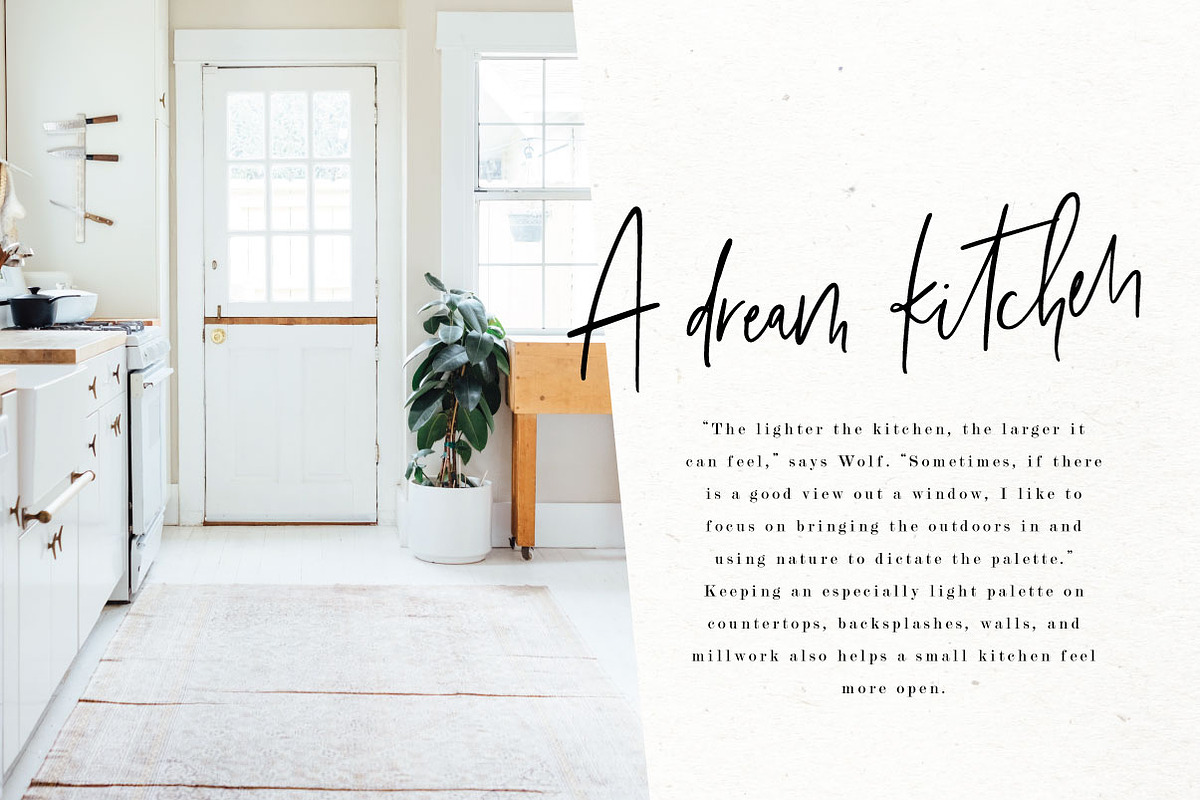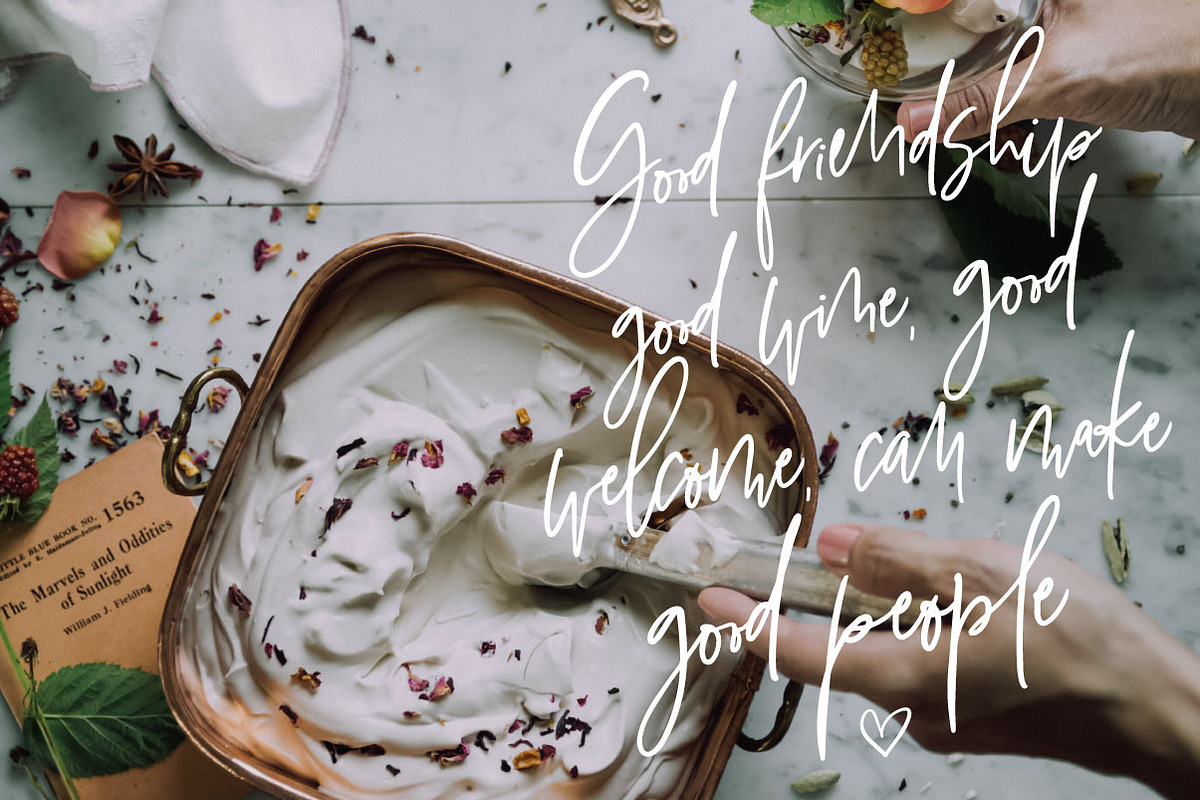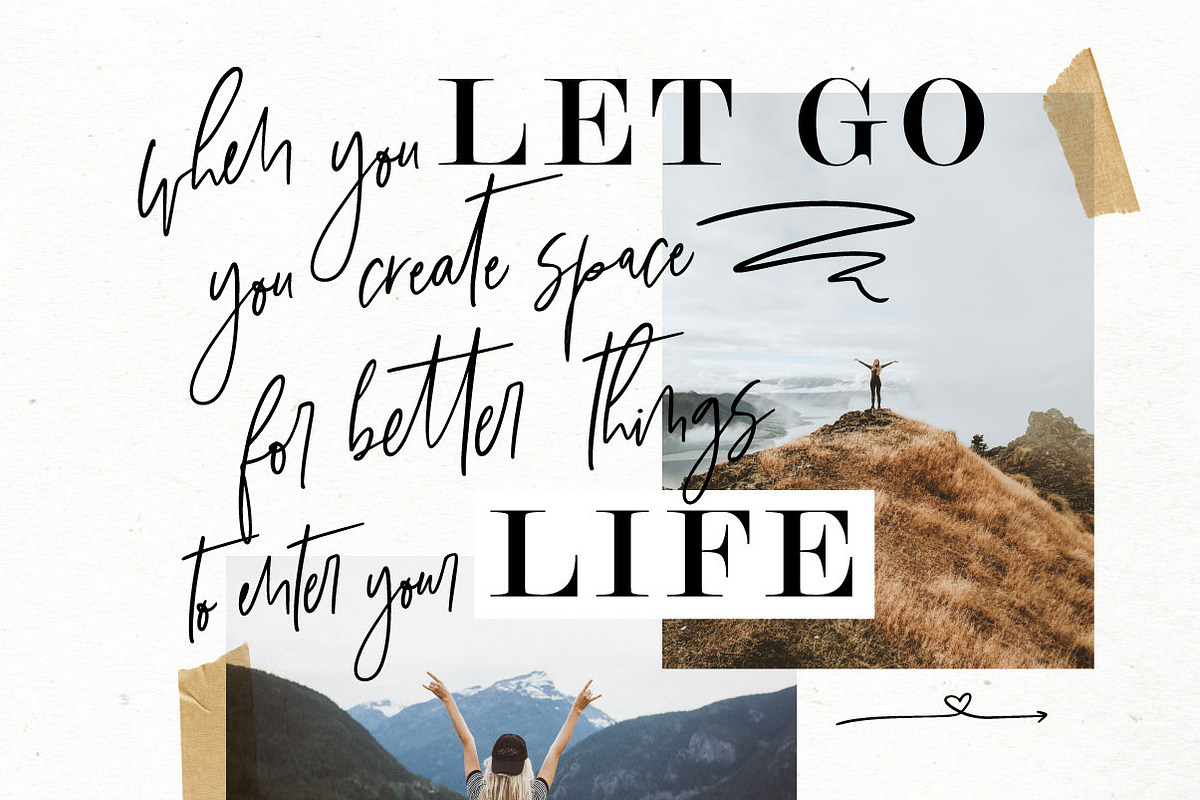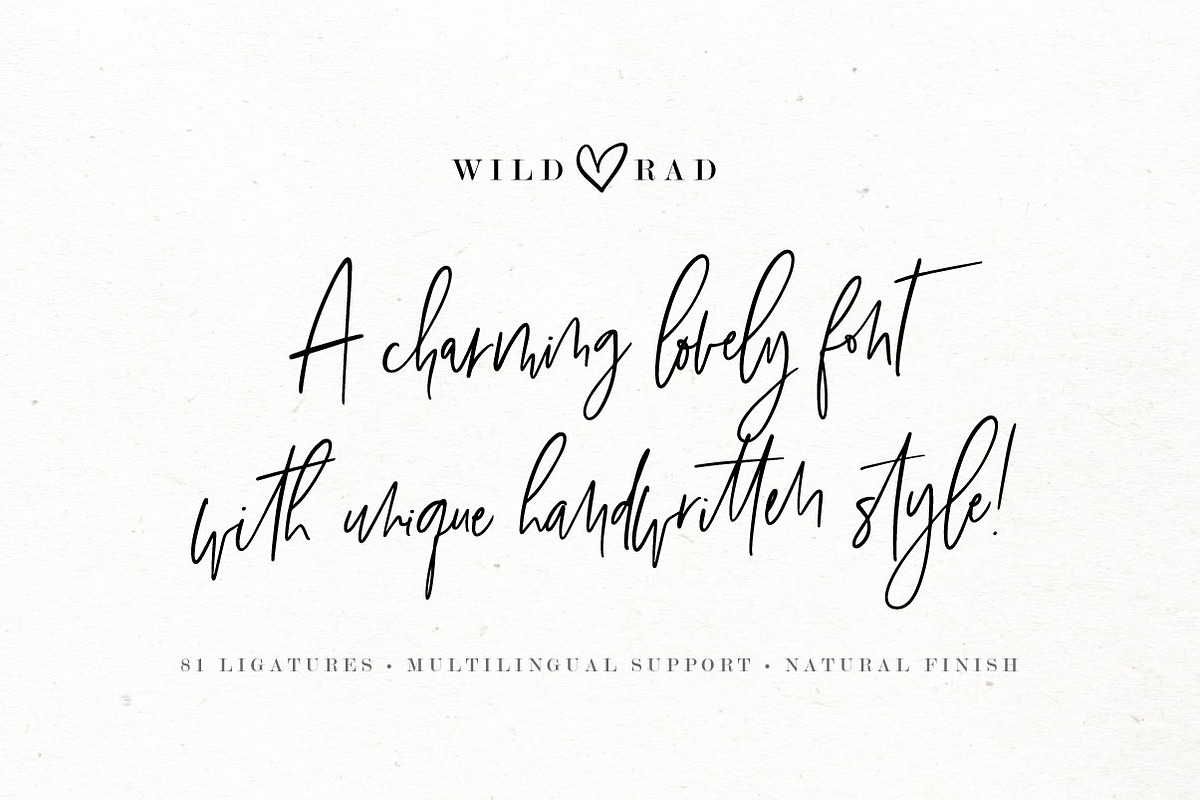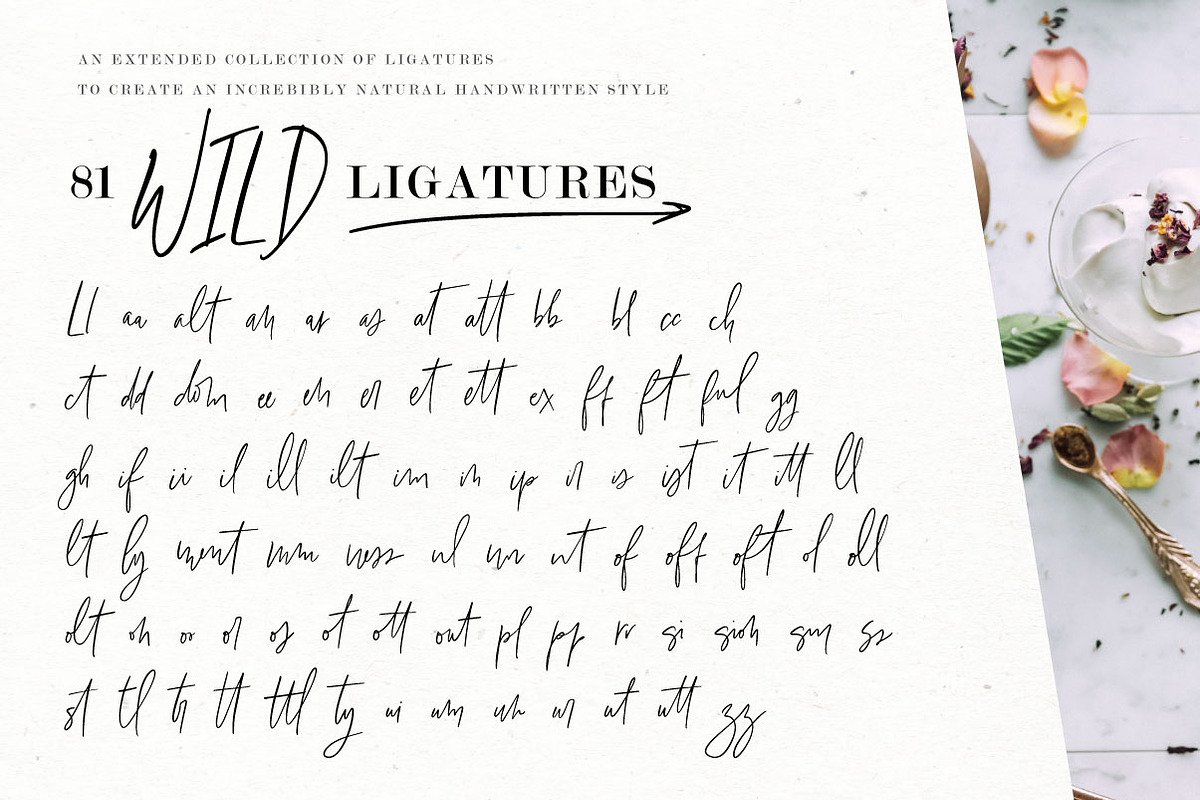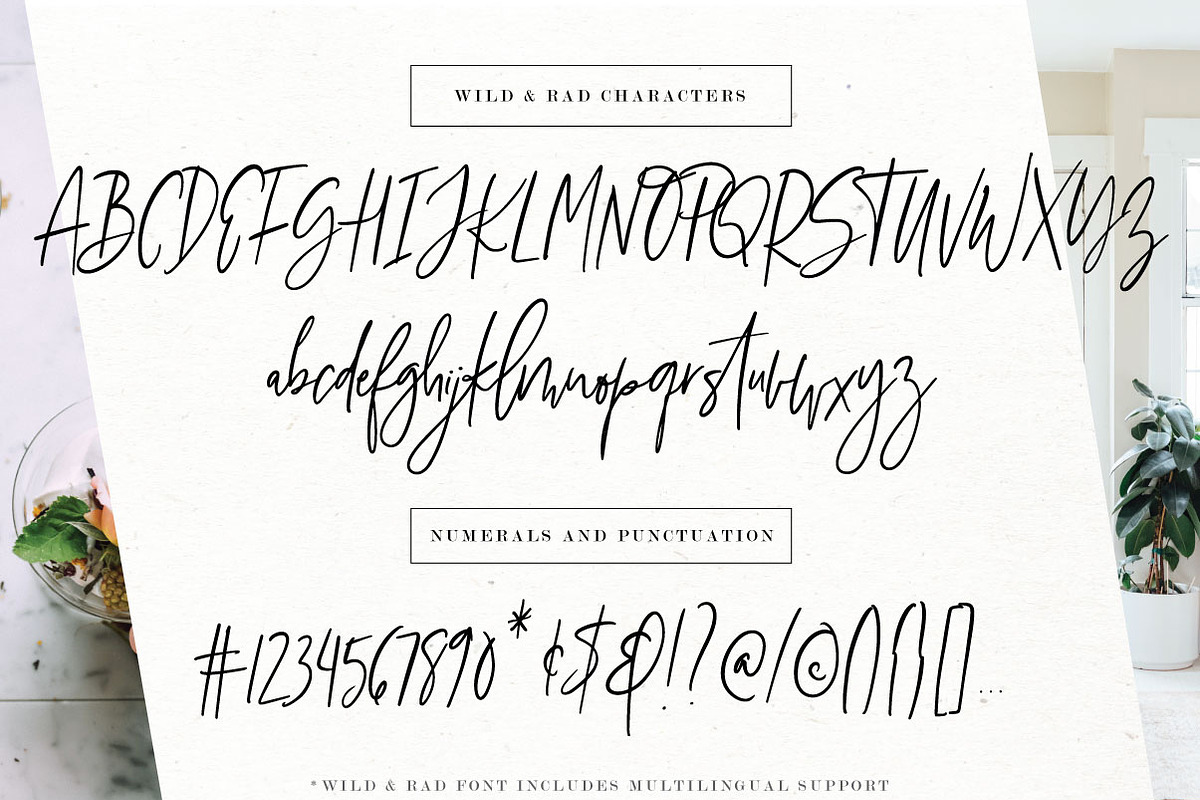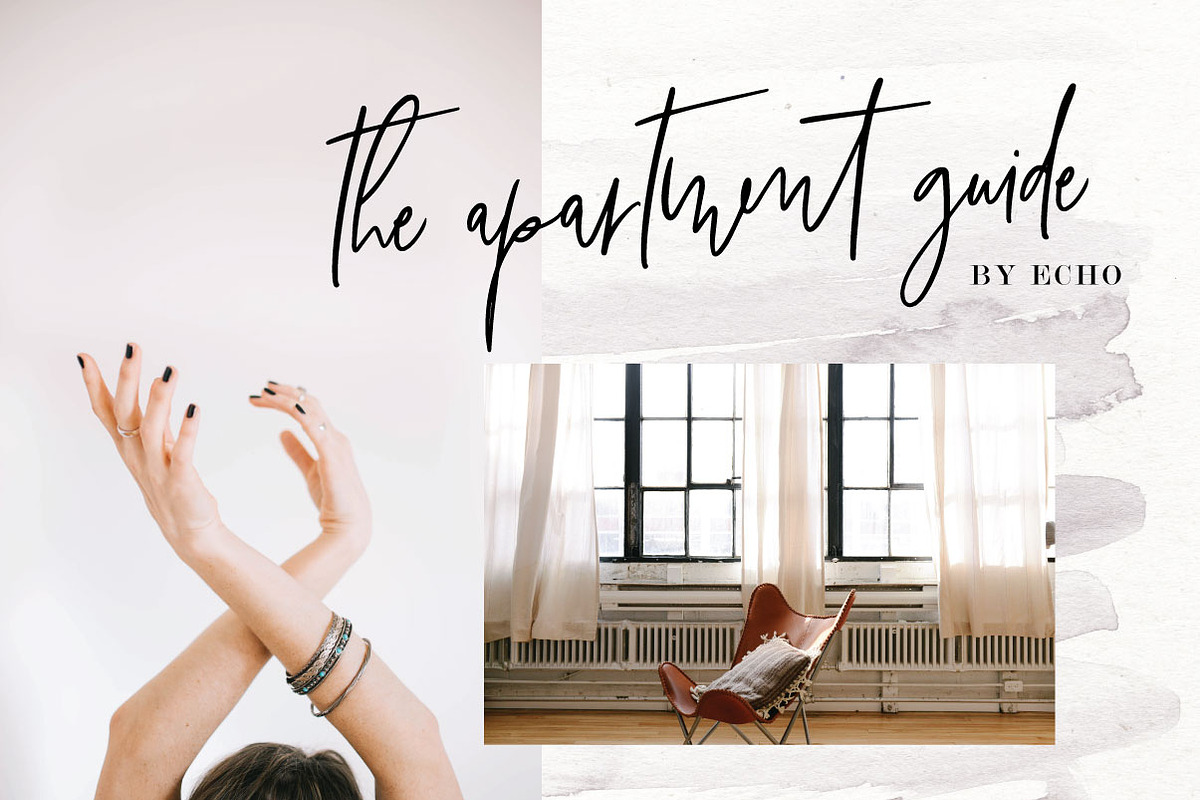
Wild & Rad Handwritten Script Font
Wild & Rad is a font inspired in a casual handwriting editorial style, specially created to engage with the spectator through natural and spontaneous script shapes, almost like if you could see the pen flowing through every trace.
This font includes 81 different ligatures in order to make Wild & Rad feel as natural as possible, the exact same look as when using pen and paper. And, despite it carries the same look and style throughout the different font characters, it includes several variations of single characters such as: "a", "e", "s", "l", "t", and many more; making it an incredibly dynamic typography with a unique charming look.
Wild & Rad is the perfect choice for those who seek a font that goes out of the font boundaries, adding movement and a strong personality to every text. Suggested for logos, titles, as well as body texts and also when used along other fonts with strong and bold styles. It’s a staple font to fall in love with!
Full upper and lowercase
Numerals and Punctuation
Accents (Multi-lingual support)
81 wild and beautiful ligatures
Regular & Bold versions
Supported Languages: Afrikaans, Albanian, Catalan, Croatian, Czech, Danish, Dutch, Estonian, Finnish French, German Icelandic, Italian, Maltese, Norwegian, Portuguese, Romanian, Slovenian, Spanish, Swedish, Latvian, Lithuanian, Turkish among others.